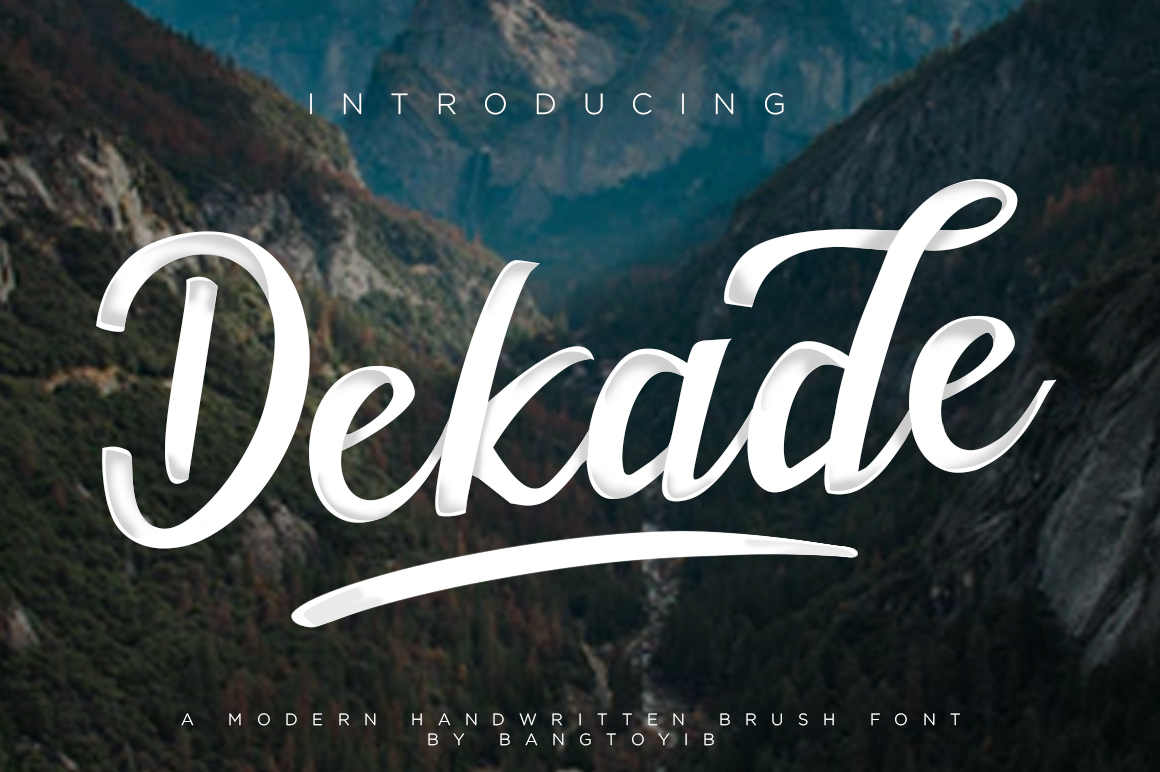
Dekade Brush Font + Swash – Freebie
• Free commercial hand-brush typeface
• Authentic, modern display/headline font
• Perfect for logos, branding, fashion, posters
Add authentic hand-brush style to your designs with –
Dekade Brush Font
A free commercial font and a hand brush typeface, with authentic and modern style.
This font functions most strongly as a display or headline font. suitable for the logo, logotype, branding, wedding, fashion, label, book cover, t-shirt, Instagram post, and other
A Sneak Peek Into Dekade Brush Font: